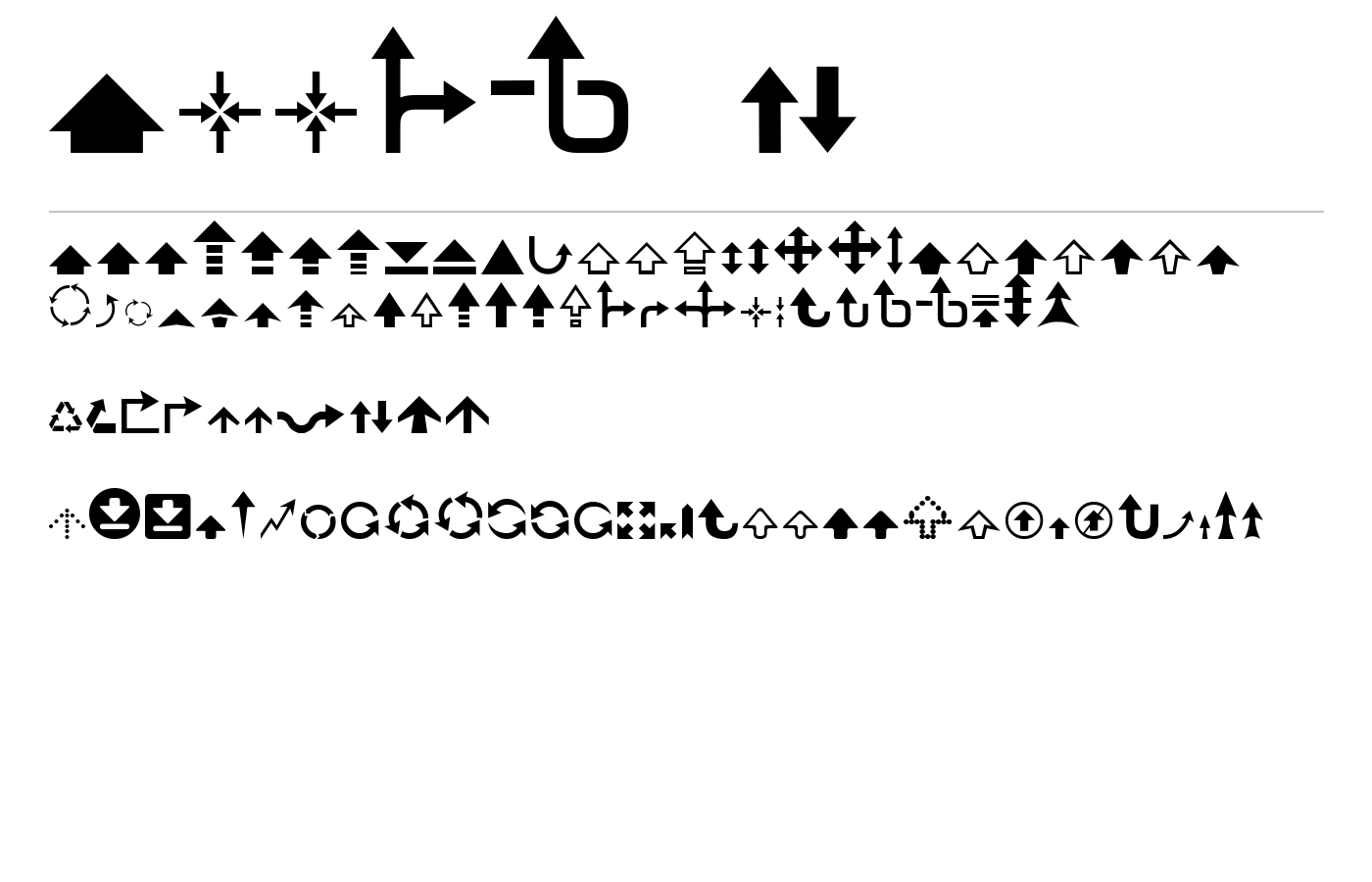
Arrow 7 Font is a unique symbol font composed entirely of various arrow designs, featuring bold, clean shapes with consistent stroke weight and a mix of solid and outlined styles. Its geometric, minimalistic look makes it perfect for digital interfaces, wayfinding systems, and graphic projects that require clear directional cues or a modern, technical feel. This font excels in applications where visual guidance and simplicity are essential, offering versatile arrow icons that communicate movement and navigation effectively.
Arrow 7 Font